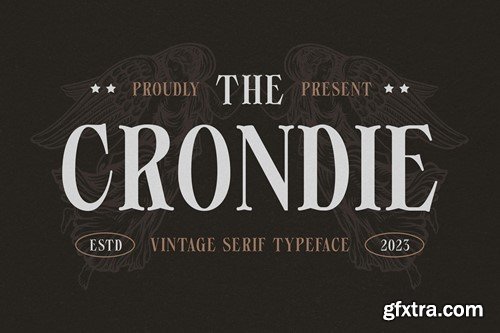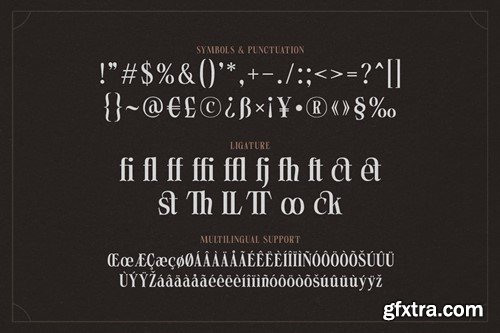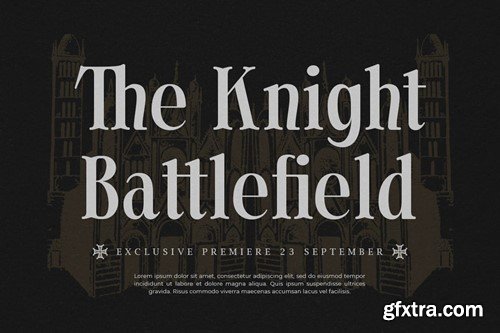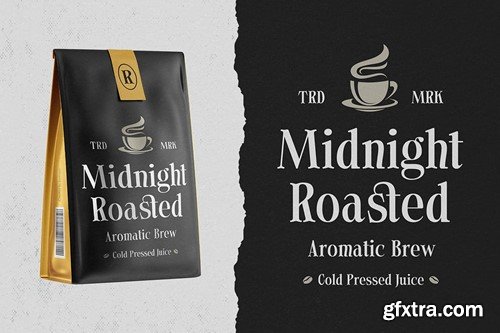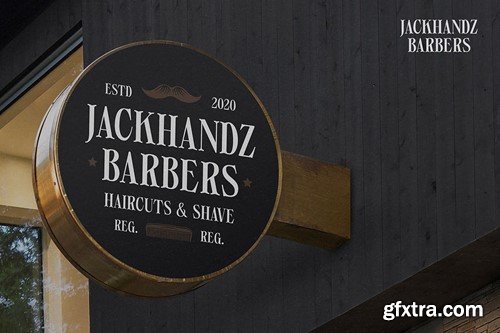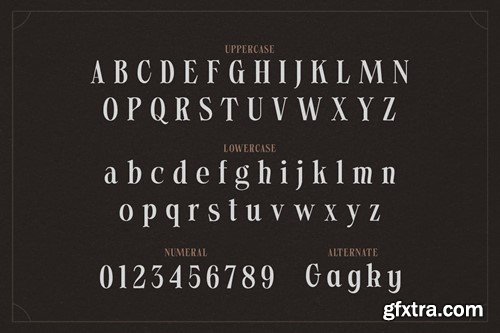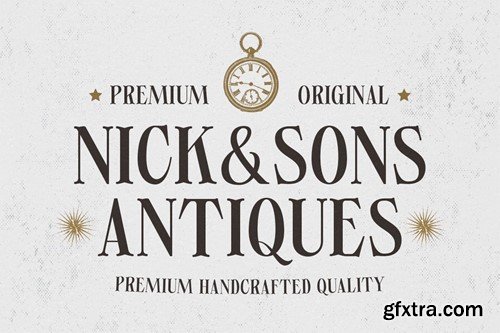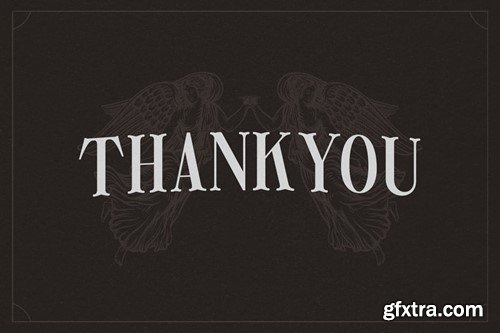
crondie - vintage serif typeface upjkkj2
Introducing "Crondie" - a vintage serif typeface that evokes nostalgia and timeless charm, perfect for adding a touch of retro elegance to your designs. With its classic serifs and old-world appeal, "Crondie" brings a sense of vintage sophistication to any project. Each character is meticulously crafted to capture the essence of bygone eras, making it ideal for vintage branding, antique-inspired posters, classic book covers, and more. Embrace the nostalgia of "Crondie" as it effortlessly enhances your designs. Whether you're creating timeless logos, elegant editorial layouts, vintage signage, or nostalgic social media graphics, this typeface will captivate your audience with its vintage and elegant style. Step into a world of vintage elegance with "Crondie" and let your designs transport your audience to a bygone era. Features: – Uppercase – Lowercase – Symbols & Punctuation – Numeral – Ligature – Alternate – Multilingual Support File Included: – Crondie ( OTF, TTF, WOFF, WOFF2 )